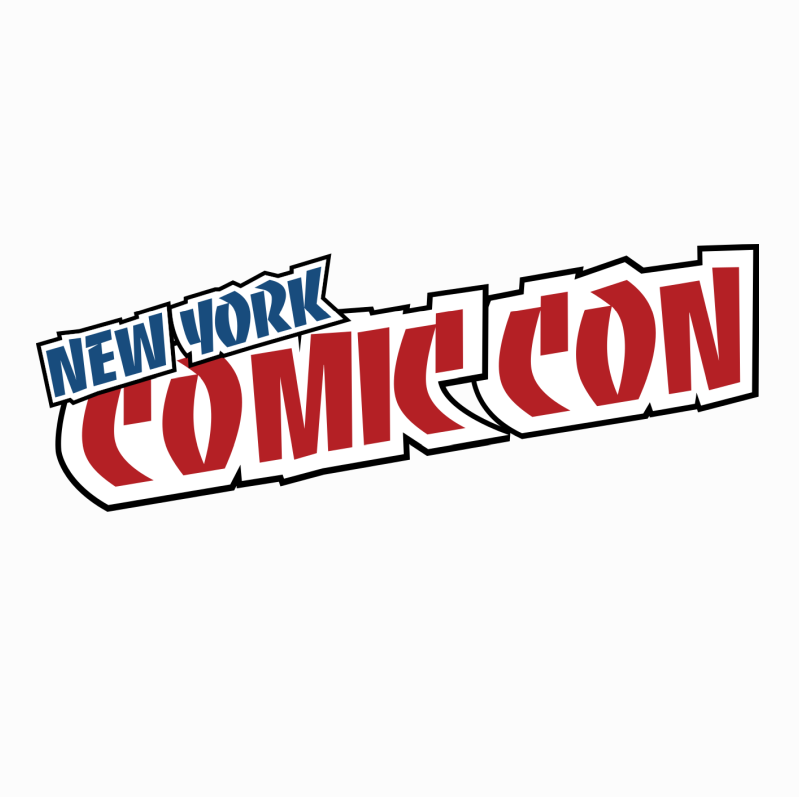
New York Comic Con Font
EntertainmentThe New York Comic Con is an annual comic book and pop culture convention held in New York City, attracting hundreds of thousands of fans from around the world to celebrate and discover the latest in comic books, graphic novels, anime, manga, video games, toys, movies, and television.
The logo was created with Banco, a capital letter only font designed by French designer Roger Excoffon in 1952. Phill Grimshaw later added lowercase letters and a lighter weight to Banco.